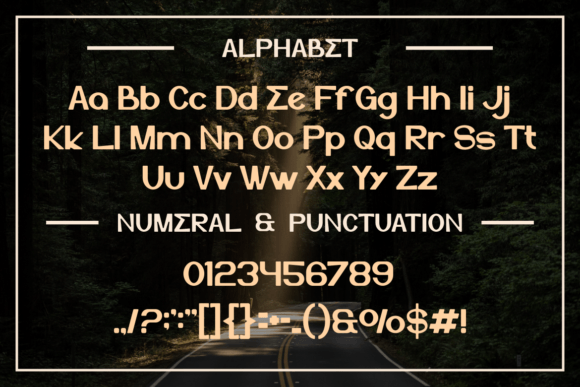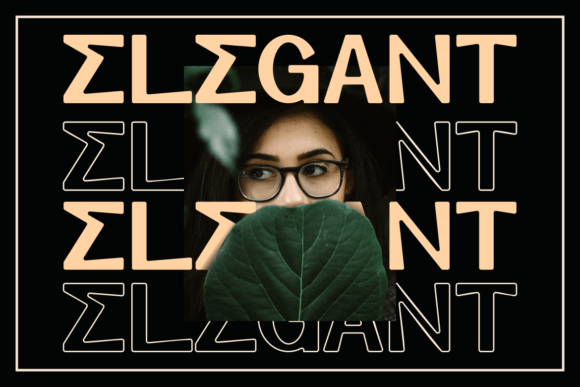
Introduction to Marena Font Font
Fonts play a crucial role in design, and the Marena Font font is a typeface that brings both character and versatility to any project. Whether you’re working on a branding project, a website, or a print design, the Marena Font font offers a unique style that can elevate your work.
Marena Font is a modern typeface with bold and authentic display lettering.
This lovely font is suitable for any branding project like logo, t-shirt printing, esports, and many more Outstanding in a wide range of contexts.
Key Features of Marena Font Font
• ✅ High-quality typeface designed for professional use
• ✅ Includes a wide range of glyphs and characters
• ✅ Ideal for logos, branding, websites, and print
Why Choose Marena Font Font?
The Marena Font font is more than just a typeface – it’s a design tool that helps you communicate your message with style and clarity. Its unique character set and versatile design make it suitable for a wide range of applications, from elegant invitations to bold headlines.
With its carefully crafted letterforms and balanced proportions, the Marena Font font ensures readability and visual appeal across all mediums.
What makes Marena Font font special?
The Marena Font font stands out with its unique design, exceptional readability, and versatility across various design applications.